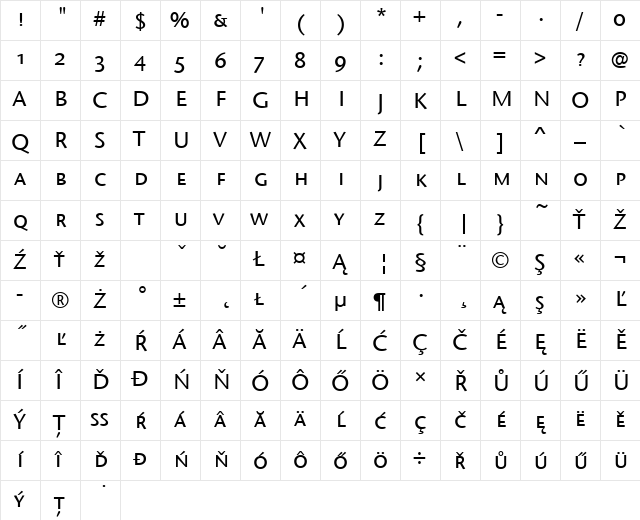
StoneSanSCItcTEEMed Regular
Design Context for StoneSanSCItcTEEMed Typeface
StoneSanSCItcTEEMed takes a measured approach to typography — its balanced proportions and neutral character make it a reliable workhorse for both digital and print work.
Pro Tip: Use StoneSanSCItcTEEMed in both headline and body roles to test its range before committing to a single application.